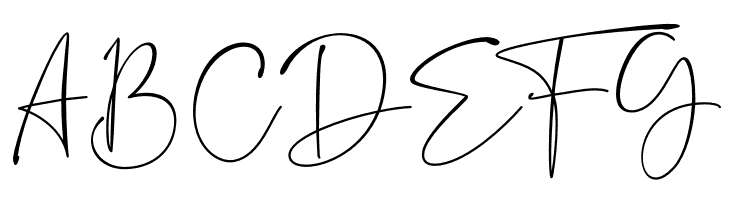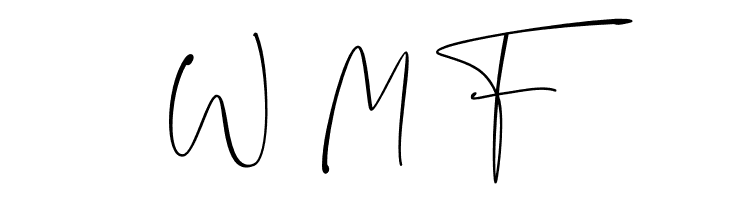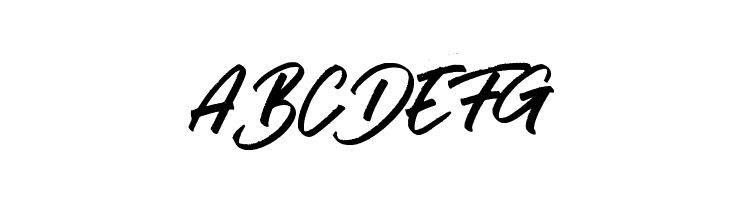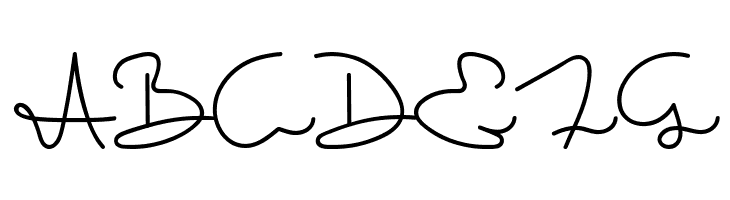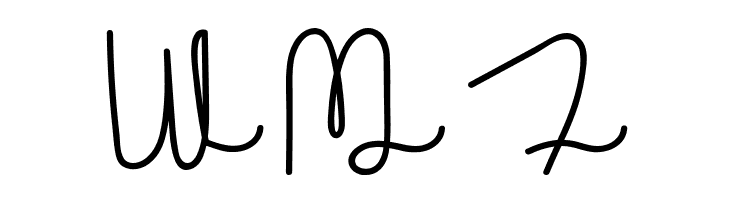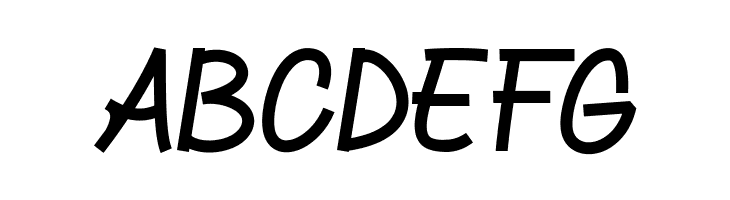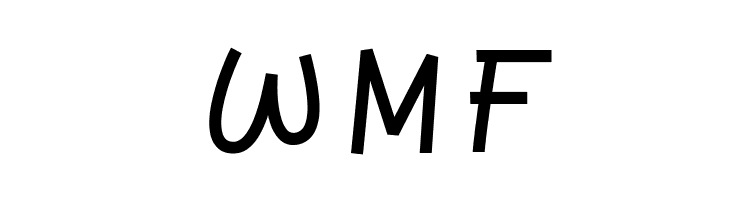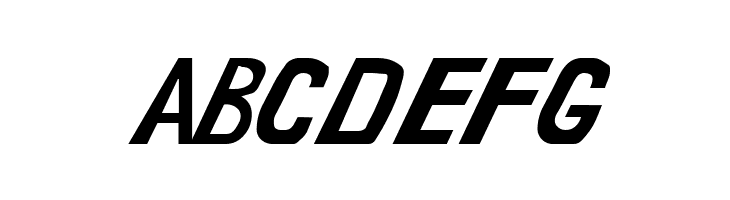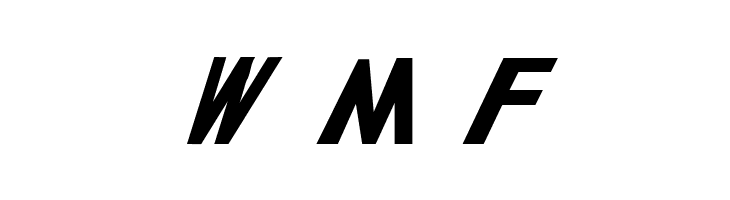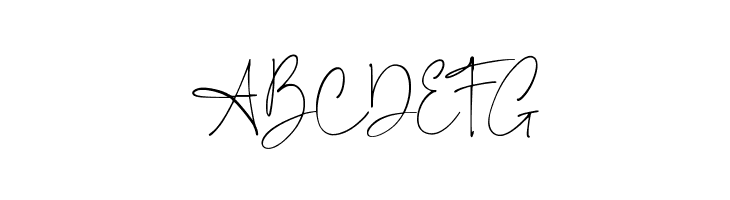
• Rushtick
• Rushtick Regural
A fluid, handwritten cursive font with elegant, slender strokes.
• RUSTO
A bold, distressed font with a grunge texture and rugged appearance.
• Rwanda Tyler
A bold, expressive handwritten font with dynamic strokes.
• Ryota
A playful, handwritten font with bold, slanted characters.
• S-Phanith14 KH PENCIL
• Sabila Renytha
Elegant handwritten script font.
• Sakila Script
A playful and whimsical script font with flowing, interconnected letters.
• Salamander
• Salpicado St
A speckled, dynamic font with a playful slant and consistent stroke width.